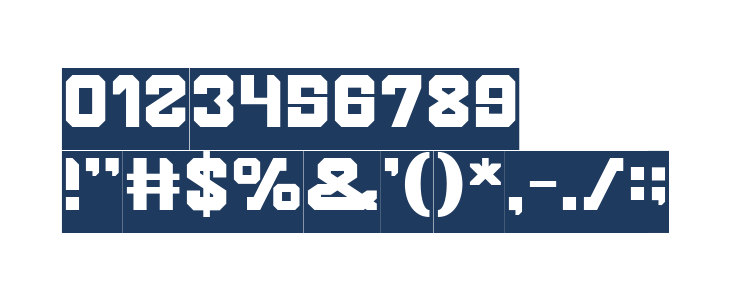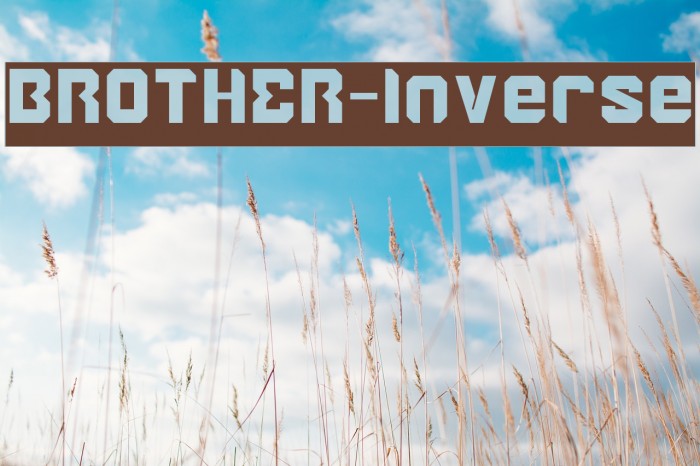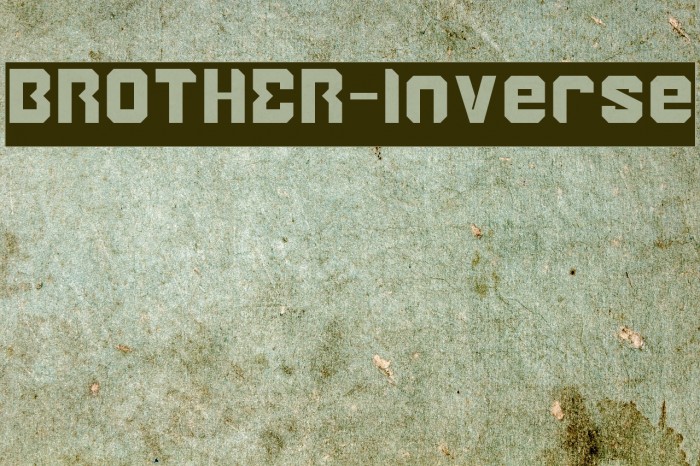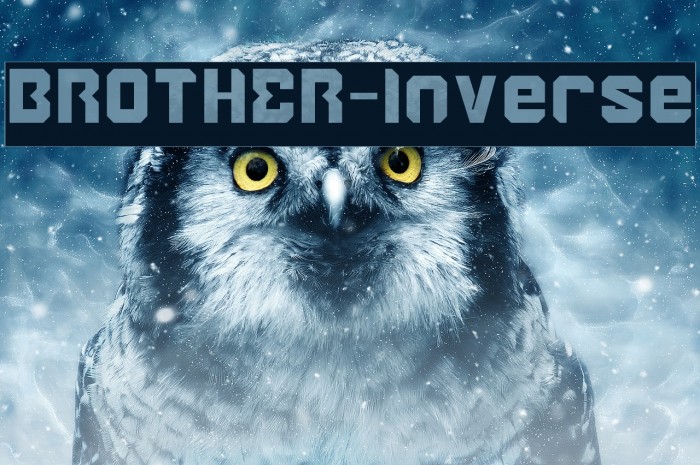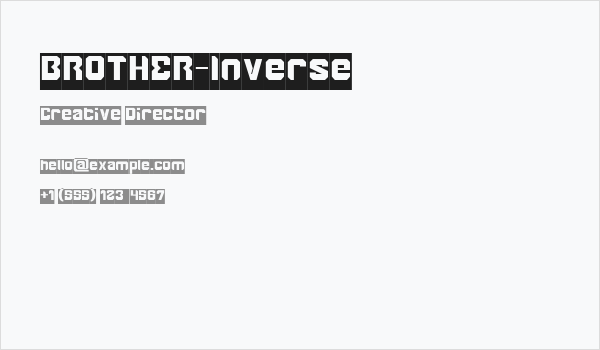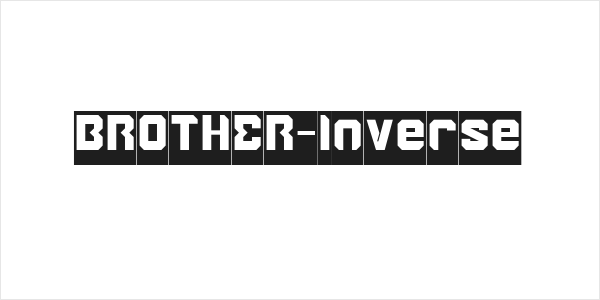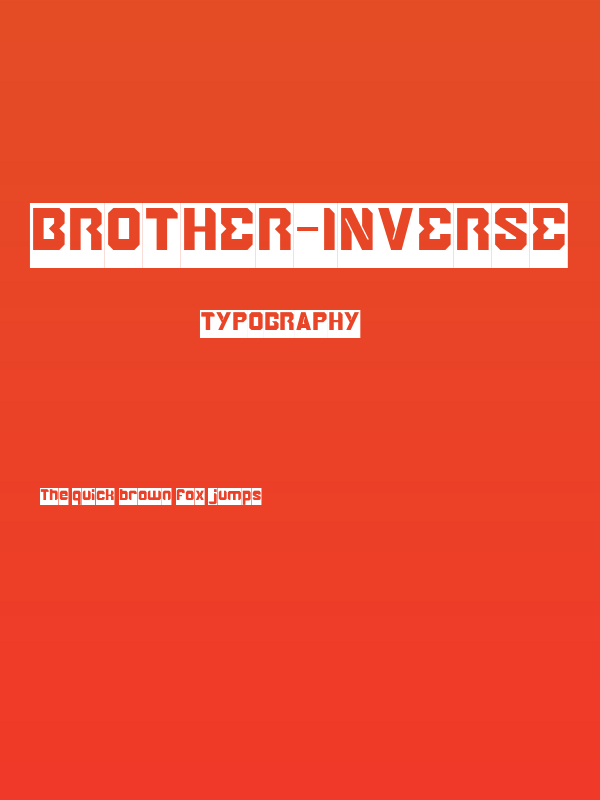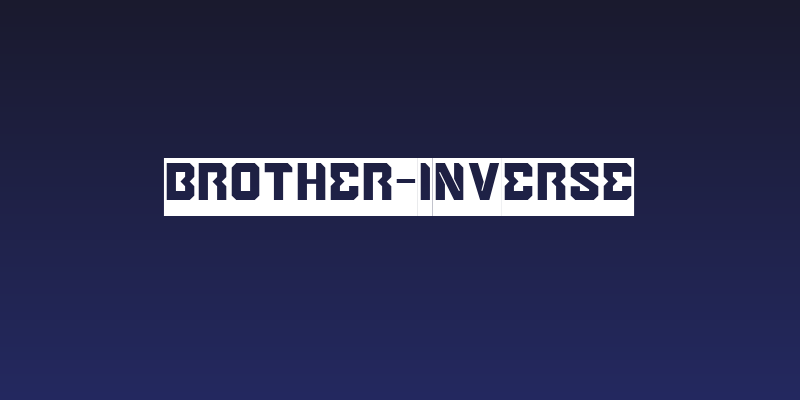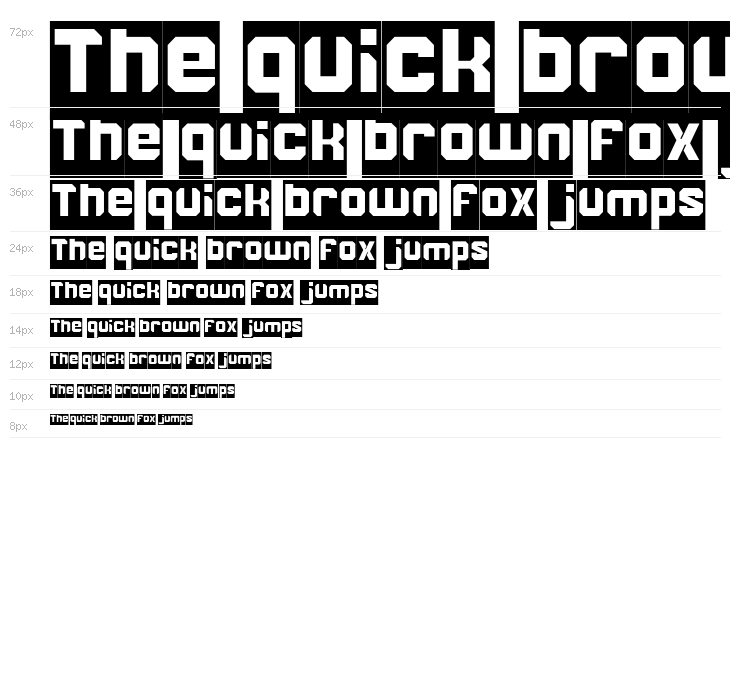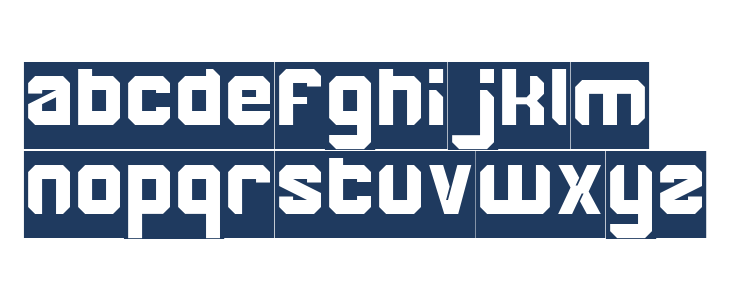
BROTHER-Inverse Font
BROTHER-Inverse Description
This font features a bold and geometric design, characterized by its strong, angular lines and distinct cut-out sections within each character. The uppercase letters are particularly striking, with a modern and industrial feel that is both eye-catching and assertive. The lowercase letters maintain this boldness, offering a consistent look across all text. Numbers and special characters are designed with the same angular style, ensuring uniformity throughout. The font's unique style makes it ideal for projects that require a strong visual impact.
| Proposed Projects | Ideal for branding, posters, headlines, and any design requiring a strong, modern aesthetic. |